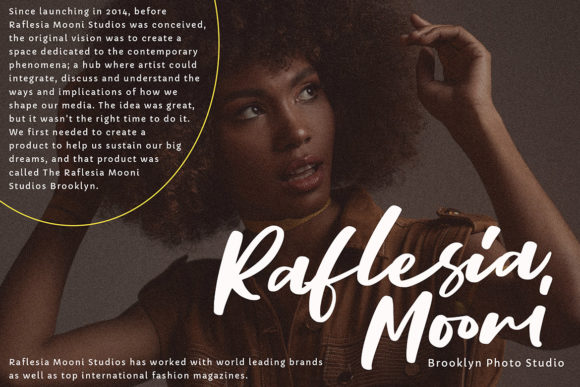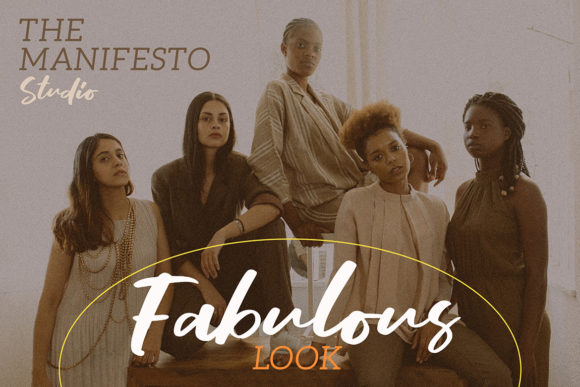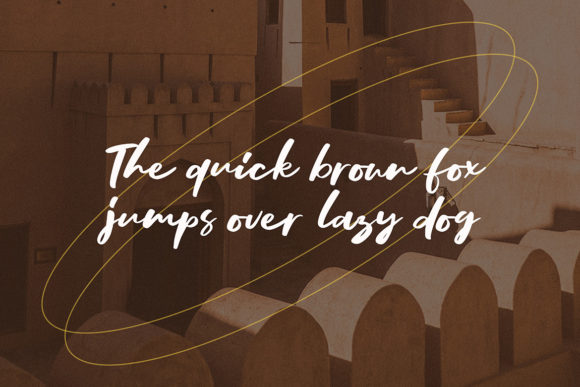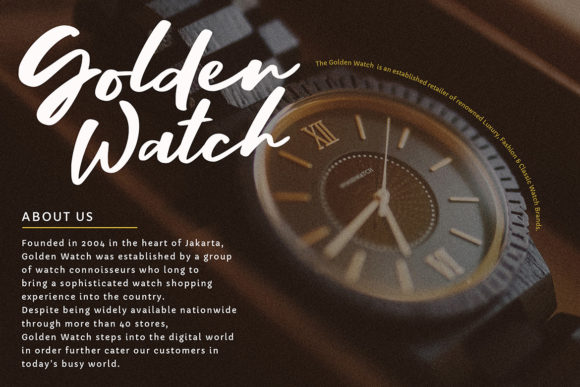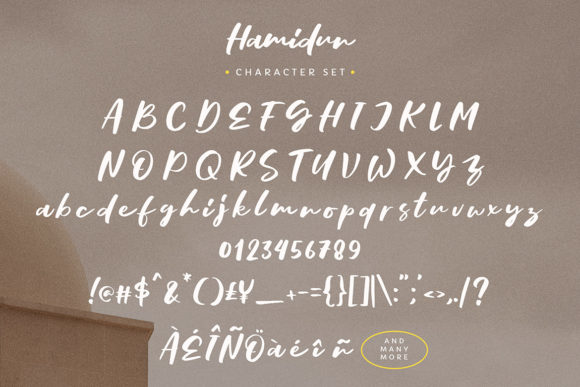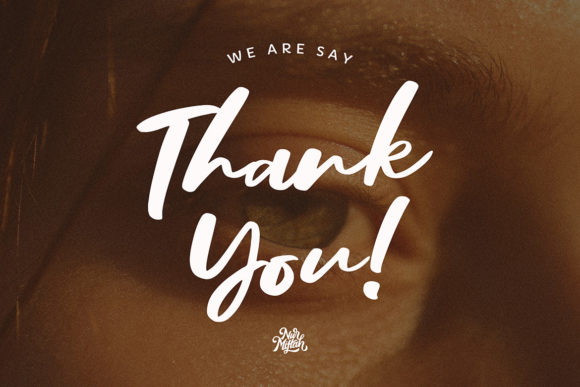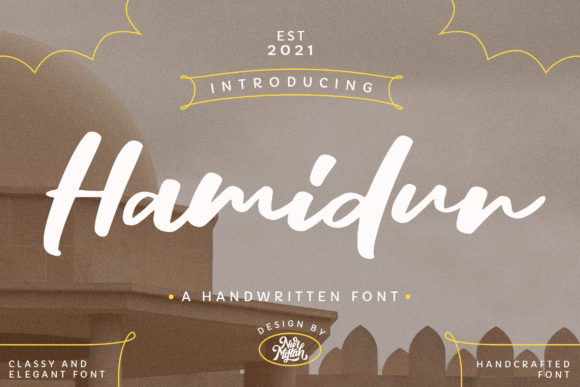
Discover the Charm of Hamidun Font: Elevate Your Designs with a Touch of Nostalgia and Romance
In the world of typography, fonts play a crucial role in conveying emotions and setting the tone for a project. For designers and crafters looking to add a touch of nostalgia and romance to their work, the Hamidun Font is an extraordinary choice. This handwritten font is not just a means of communication; it’s an expression of art that can elevate your designs and make them truly unforgettable.
The Essence of Hamidun Font
Hamidun is described as an extraordinary handwritten font that looks charming and somewhat poetic. Its unique characteristics make it stand out in the realm of typography. The fluidity and natural flow of Hamidun’s letters evoke a sense of warmth and personal touch, making it perfect for projects that require a humanistic approach. Whether you’re working on a branding project, a wedding invitation, or a personal craft, Hamidun adds a distinctive flair that is hard to replicate with more conventional fonts.
Adding a Nostalgic and Romantic Flair
The ability of Hamidun Font to add a nostalgic and even romantic flair to projects is one of its most compelling features. In an era dominated by digital communications, the handwritten feel of Hamidun offers a refreshing respite. It brings back memories of handwritten letters and notes, evoking feelings of warmth and intimacy. For crafters and designers, this means that any project undertaken with Hamidun is instantly imbued with a sense of care and personal attention.
Versatility in Design Projects
One of the key advantages of using Hamidun Font is its versatility. Its charming and poetic nature makes it suitable for a wide range of design projects. Here are a few ways designers and crafters can utilize Hamidun:
• Wedding Invitations and Stationery: The romantic feel of Hamidun makes it an ideal choice for wedding-related designs. It adds an elegant and personal touch to invitations, save-the-date cards, and other stationery.
• Branding and Packaging: For brands looking to convey a sense of warmth and approachability, Hamidun can be a valuable asset. It can be used in logos, product labels, and packaging to give a brand a unique and memorable identity.
• Digital and Print Media: Whether it’s for a website, a blog, a magazine, or an advertisement, Hamidun can add a distinctive touch to digital and print media, making content more engaging and relatable.
• Personal Crafts: For crafters, Hamidun can be used in a variety of personal projects such as handmade cards, journals, and DIY decorations. Its personal and artistic feel can elevate these crafts, making them more special.
Why Choose Hamidun Font?
Choosing Hamidun Font for your design projects comes with several benefits:
• Unique Aesthetic: Hamidun offers a unique aesthetic that is hard to find in more conventional fonts. Its poetic and charming nature can make your projects stand out.
• Emotional Connection: The nostalgic and romantic feel of Hamidun can help create an emotional connection with your audience, making your designs more impactful.
• Versatility: As mentioned earlier, Hamidun’s versatility makes it suitable for a wide range of projects, from professional designs to personal crafts.
How to Use Hamidun Font Effectively
To make the most of Hamidun Font, consider the following tips:
• Pair with Complementary Fonts: When using Hamidun in a project, consider pairing it with fonts that complement its style. A combination of serif and sans-serif fonts can create a visually appealing contrast.
• Adjust Letter Spacing: To enhance readability and aesthetics, adjust the letter spacing according to the project’s requirements. Some designs benefit from tighter spacing, while others look better with more space between letters.
• Experiment with Colors: Don’t be afraid to experiment with different colors. Hamidun can look stunning in various colors, especially those that complement its handwritten feel.
In conclusion, Hamidun Font is a remarkable addition to any designer’s or crafter’s toolkit. Its charming and poetic nature, coupled with its ability to evoke nostalgia and romance, makes it a versatile and valuable asset for a wide range of projects. By incorporating Hamidun into your designs, you can add a personal touch that resonates with your audience and sets your work apart.